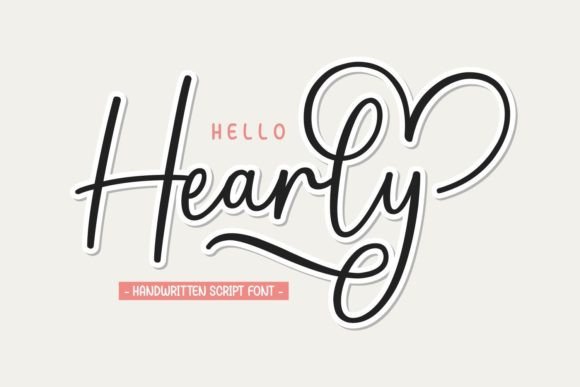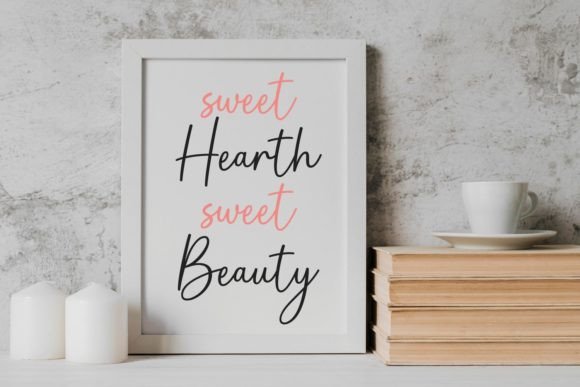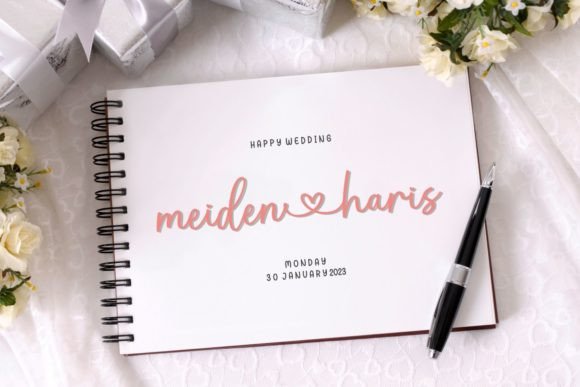
About Hello Hearly
Hello Hearly is an attractive and cursive handwritten font. This gentle font will look impressive on lots of design ideas. It will add a fascinating flair to each of your projects! Keep in mind that the font is PUA encoded, meaning that you can access all delightful glyphs and swashes effortlessly.